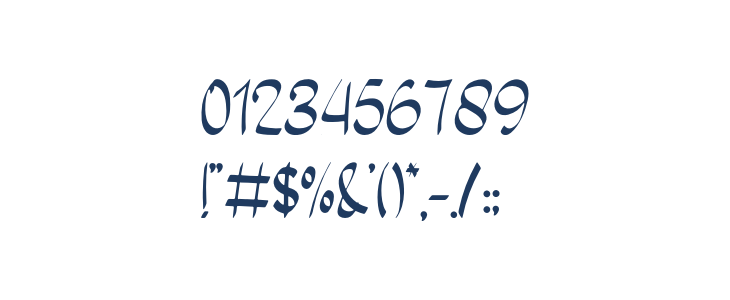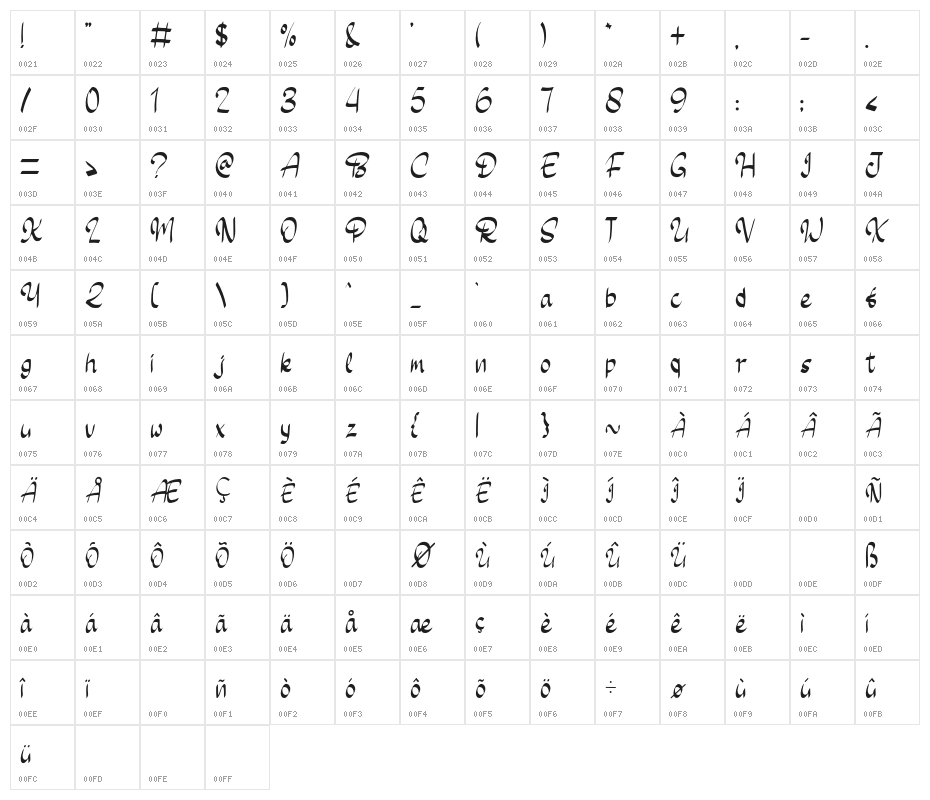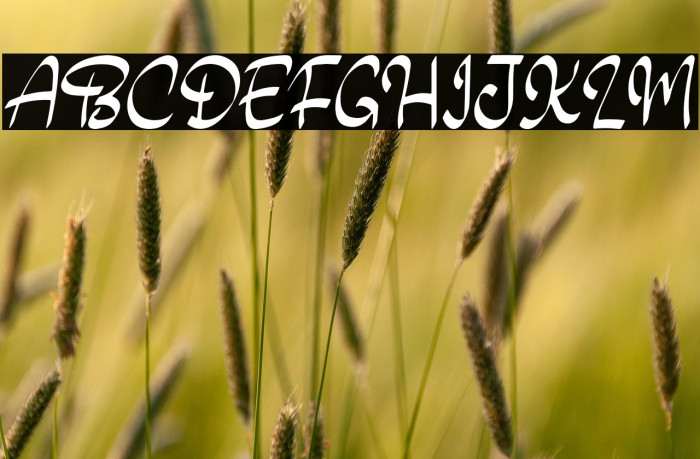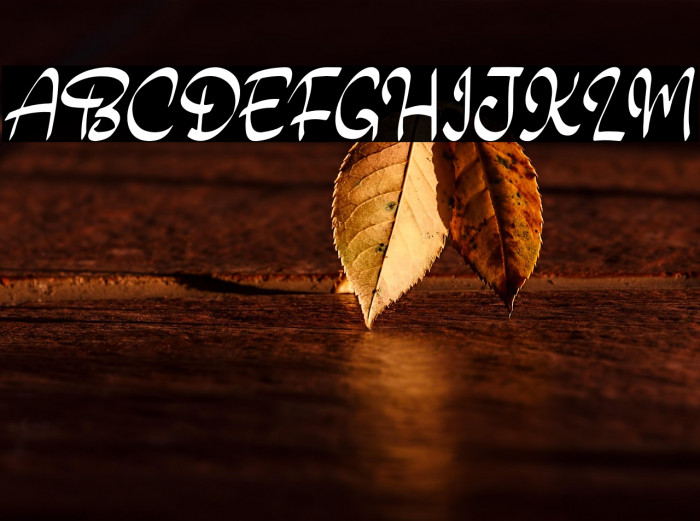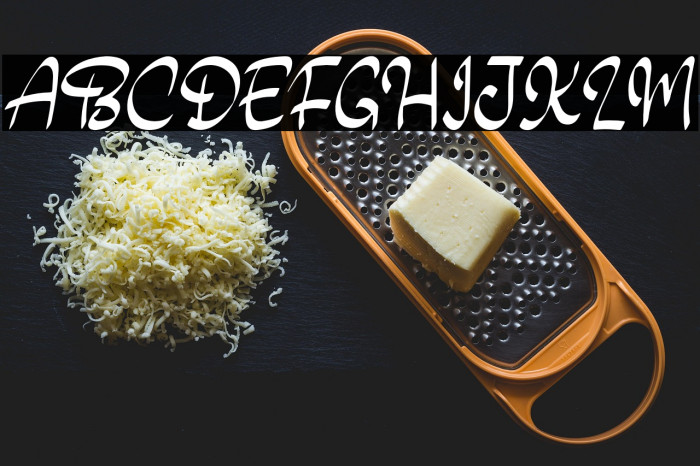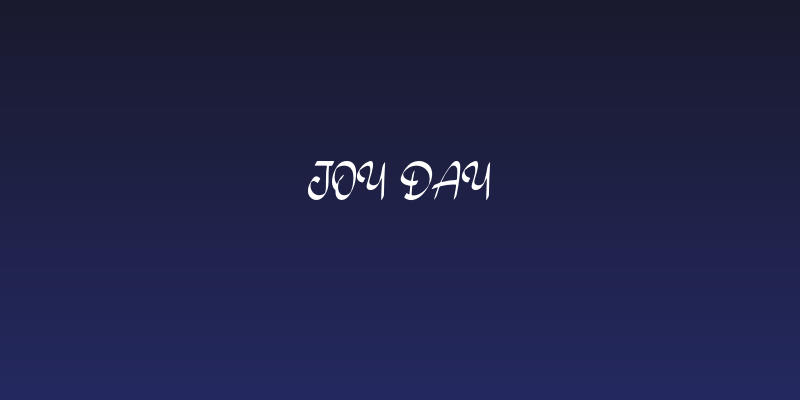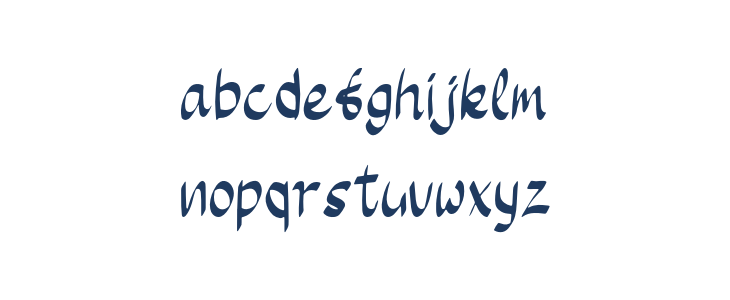
Joy Day Font
Joy Day Description
This font features a dynamic and flowing script style, characterized by its elegant curves and smooth transitions between characters. The uppercase letters exhibit a bold and confident presence, while the lowercase letters maintain a consistent fluidity, enhancing readability. The numerals are well-integrated into the overall design, maintaining the same stylistic elements as the alphabet. Special characters are thoughtfully crafted, ensuring they complement the font's aesthetic. The overall appearance is both artistic and legible, making it suitable for a variety of creative applications.
| Proposed Projects | Ideal for wedding invitations, greeting cards, branding projects, and artistic posters. |